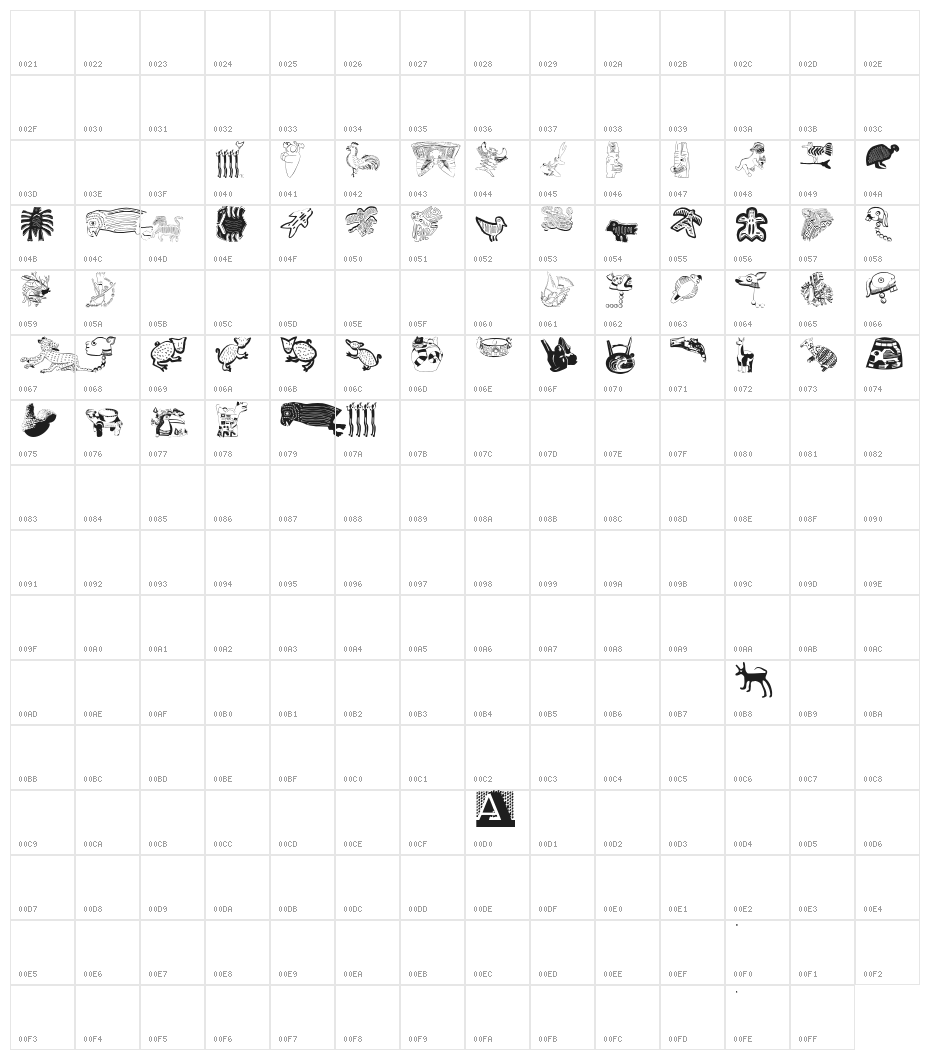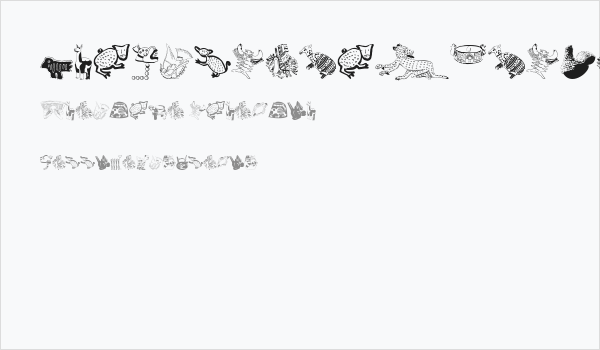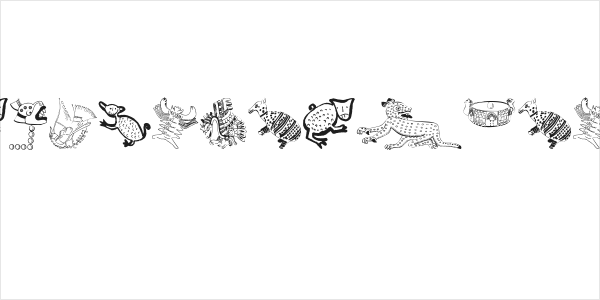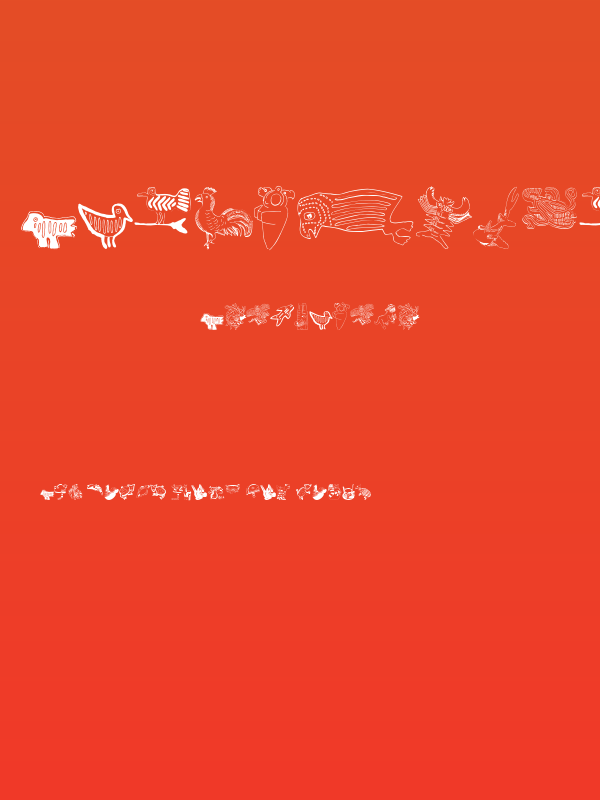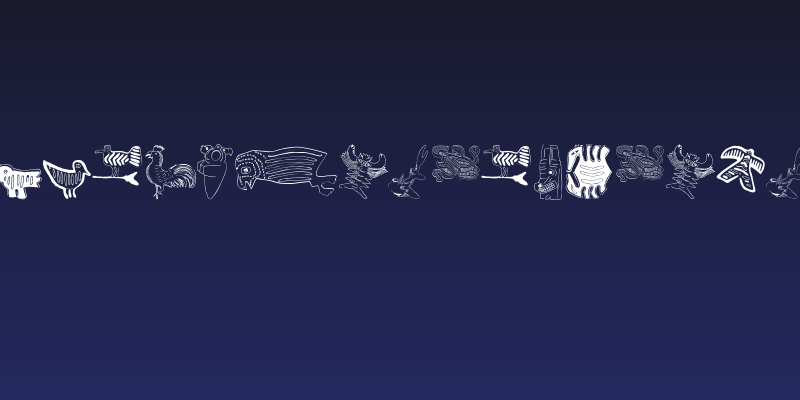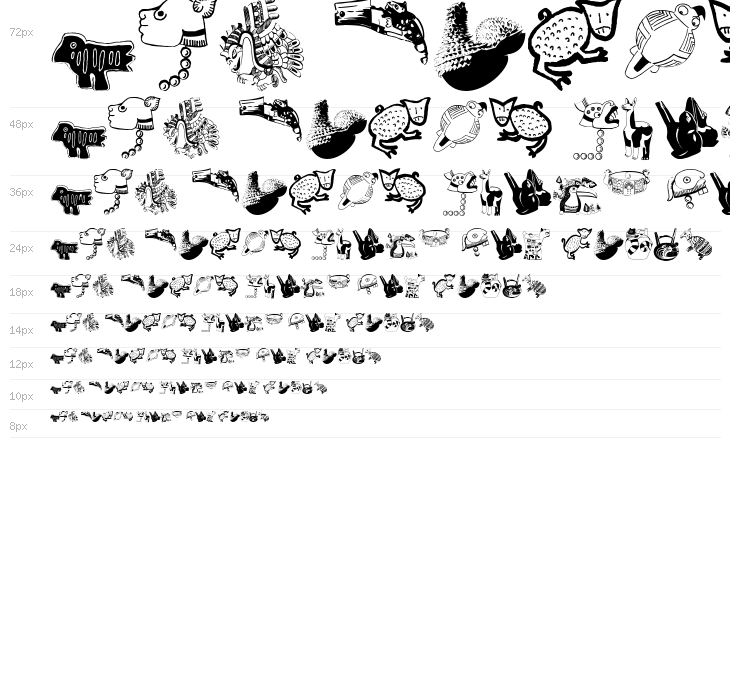
TribalDesignsDue Font
TribalDesignsDue Description
A highly decorative font featuring intricate tribal and animal-inspired illustrations for each character, with bold outlines and detailed internal patterns, evoking indigenous art styles.
| Overall Style | Decorative, Tribal, Artistic |
| Use Case | Logos, Headlines, Posters, Themed Graphics |
| Proposed Projects | Posters, event flyers, childrenΓ’β¬β’s books, themed branding, educational materials, art projects. |